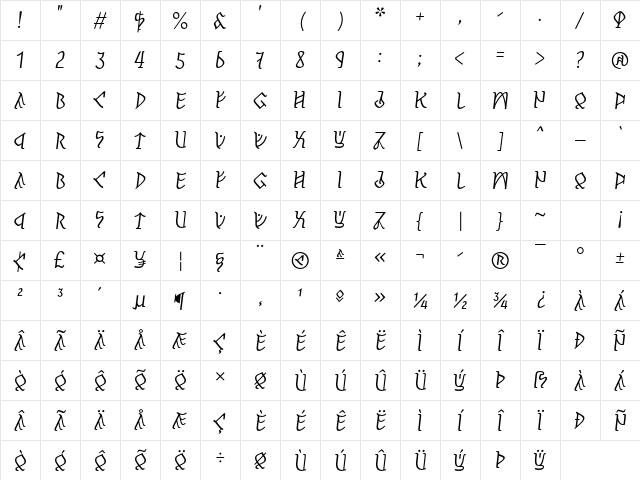
Pertho Italic Free Font
Pertho Italic
Designer: Adam Jagosz
Design Context for Pertho
Pertho is a composed and adaptable typeface that performs quietly and consistently across a wide range of design contexts. The slanted form adds forward momentum and visual energy.